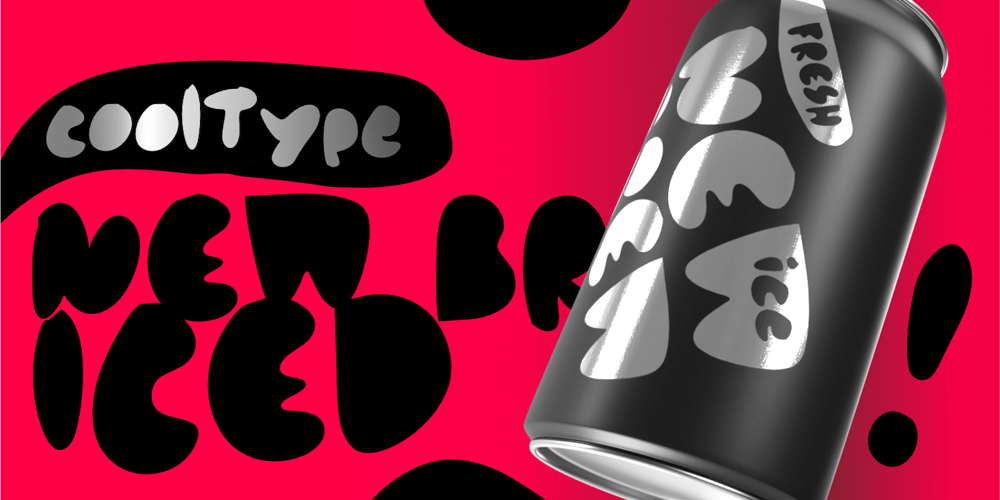
Blopopo Font Family was designed by Wahyu Eka Prasetya, Afiat Sukmaraga and published by Hati. Blopopo contains 1 styles and family package options. Blopopo, this typeface captures the charm of hand-crafted letters, making it ideal for adding a personal touch to your designs. The uneven thickness in the strokes brings a sense of authenticity, giving your work a unique, organic feel. Whether you’re designing logos, posters, social media graphics, or packaging, this font adapts seamlessly to various styles, from modern and trendy to casual and fun.